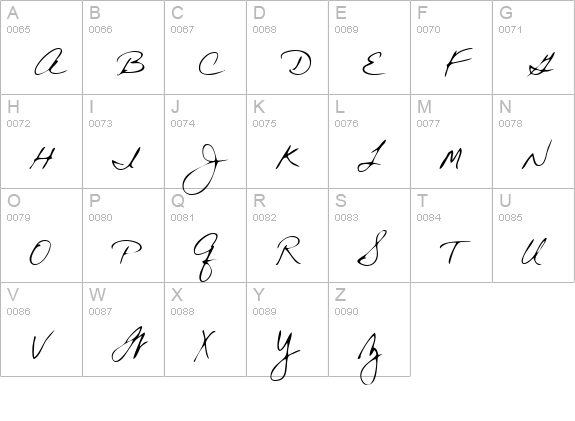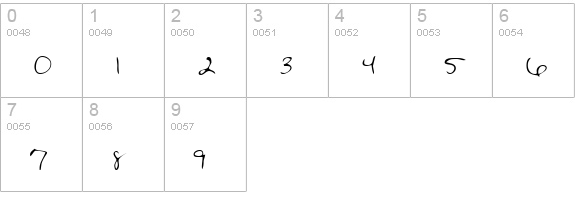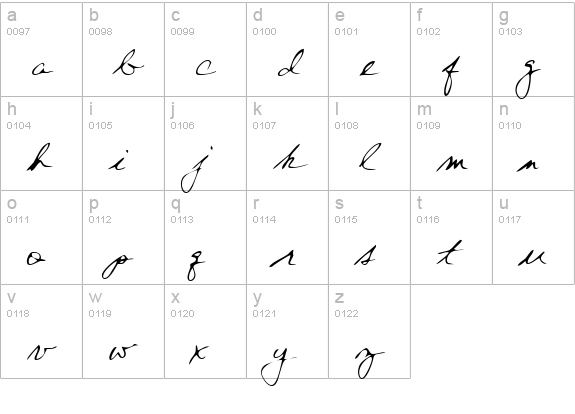
MerylsHand Regular is the standard, neutral variant in the MerylsHand typeface family \xE2\x80\x94 well suited to general body text, paragraphs, and standard typographic work.
MerylsHand Regular is a charming and elegant handwritten font that adds a personal touch to any design project. With its flowing lines and delicate curves, this font exudes a sense of warmth and friendliness. Whether you're creating invitations, greeting cards, or branding materials, MerylsHand Regular is the perfect choice to convey a sense of creativity and individuality. The best part? MerylsHand Regular is available for free download at FontsMarket.com, making it accessible to everyone looking to add a touch of whimsy to their projects. Don't miss out on this versatile and beautiful font that will surely elevate your designs to the next level. Download MerylsHand Regular today and let your creativity shine!